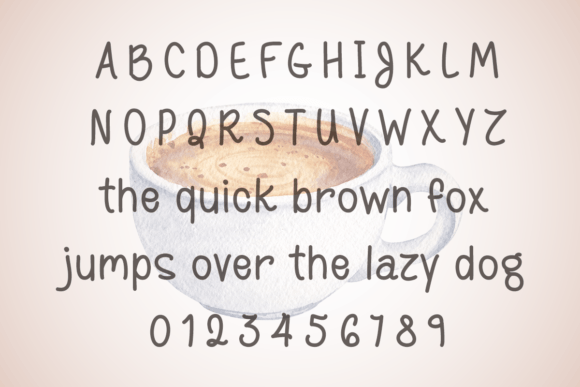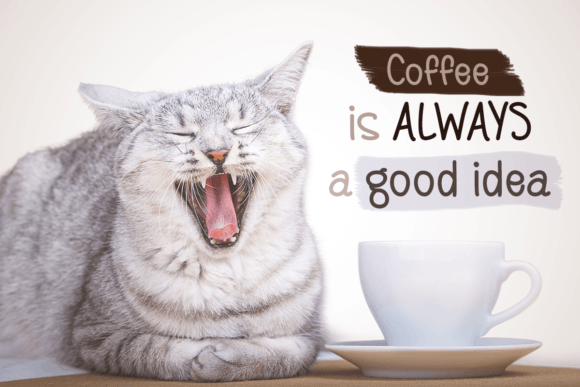
Coffee for Breakfast Font: The Perfect Handwritten Typeface for Designers and Crafters
Are you a designer or crafter looking for a unique and whimsical font to add a personal touch to your projects? Look no further than the Coffee for Breakfast font! This adorable handwritten typeface is perfect for creating visually appealing blog post graphics, shop logos, product labels, greeting cards, and personalized items. In this article, we’ll dive into the features and benefits of the Coffee for Breakfast font and explore how it can elevate your design and crafting projects.
What is Coffee for Breakfast Font?
Coffee for Breakfast is a cute handwritten typeface that exudes a playful and charming vibe. Its whimsical style makes it ideal for creating projects that require a personal and friendly touch. The font is designed to be versatile and can be used for a wide range of applications, from digital designs to print materials.
Key Features of Coffee for Breakfast Font
- Handwritten style: The Coffee for Breakfast font features a beautiful handwritten style that adds a personal touch to any project.
- Whimsical vibe: The font’s whimsical style makes it perfect for creating greeting cards, personalized items, and cartoons or comic-themed projects.
- Versatile: The Coffee for Breakfast font can be used for a wide range of applications, including blog post graphics, shop logos, product labels, and more.
- Easy to read: Despite its playful style, the font is easy to read and can be used for both headings and body text.
Uses for Coffee for Breakfast Font
The Coffee for Breakfast font is perfect for designers and crafters who want to add a personal touch to their projects. Here are some ideas for using this beautiful font:
- Blog post graphics: Use the Coffee for Breakfast font to create eye-catching blog post graphics that will make your content stand out.
- Shop logos: Create a unique and memorable shop logo using the Coffee for Breakfast font.
- Product labels: Add a personal touch to your product labels with the Coffee for Breakfast font.
- Greeting cards: Use the font to create beautiful and personalized greeting cards for any occasion.
- Personalized items: Create customized items such as mugs, t-shirts, and tote bags using the Coffee for Breakfast font.
- Cartoons or comic-themed projects: The font’s whimsical style makes it perfect for creating cartoons or comic-themed projects.
Benefits of Using Coffee for Breakfast Font
Using the Coffee for Breakfast font can bring several benefits to your design and crafting projects. Here are a few:
- Unique and personalized: The font’s handwritten style adds a unique and personalized touch to your projects.
- Versatile: The font can be used for a wide range of applications, making it a great addition to your font library.
- Time-saving: Using a pre-designed font can save you time and effort, allowing you to focus on other aspects of your project.
Tips for Using Coffee for Breakfast Font
Here are a few tips for getting the most out of the Coffee for Breakfast font:
- Experiment with different colors: The font’s whimsical style looks great with bright and bold colors.
- Mix and match with other fonts: Combine the Coffee for Breakfast font with other fonts to create a unique and visually appealing design.
- Use it for headings and titles: The font’s playful style makes it perfect for headings and titles.
- Add a personal touch: Use the font to add a personal touch to your projects, such as a handwritten note or a customized label.
In conclusion, the Coffee for Breakfast font is a beautiful and versatile handwritten typeface that is perfect for designers and crafters. Its whimsical style and ease of use make it ideal for creating a wide range of projects, from blog post graphics to greeting cards and personalized items. With its unique and personalized touch, the Coffee for Breakfast font is sure to elevate your design and crafting projects to the next level.